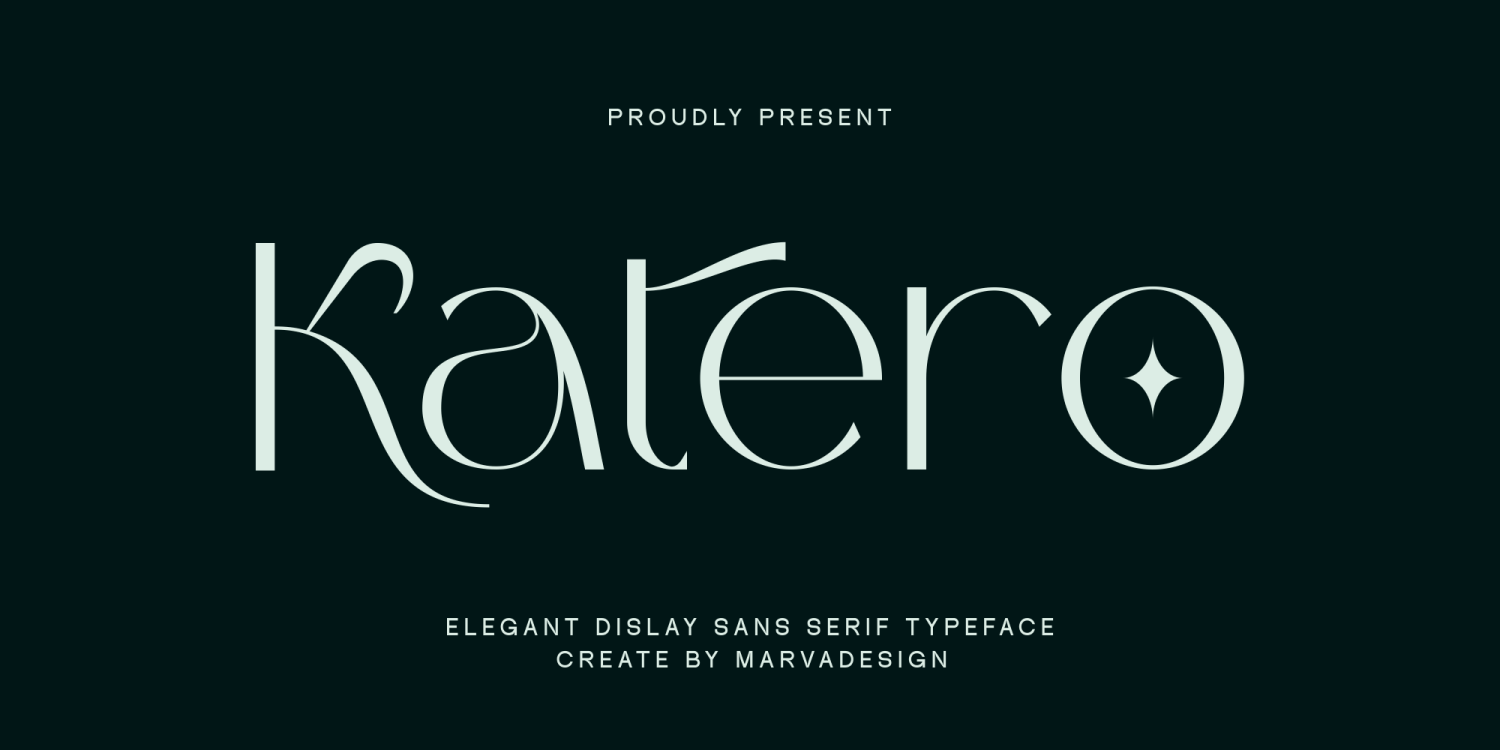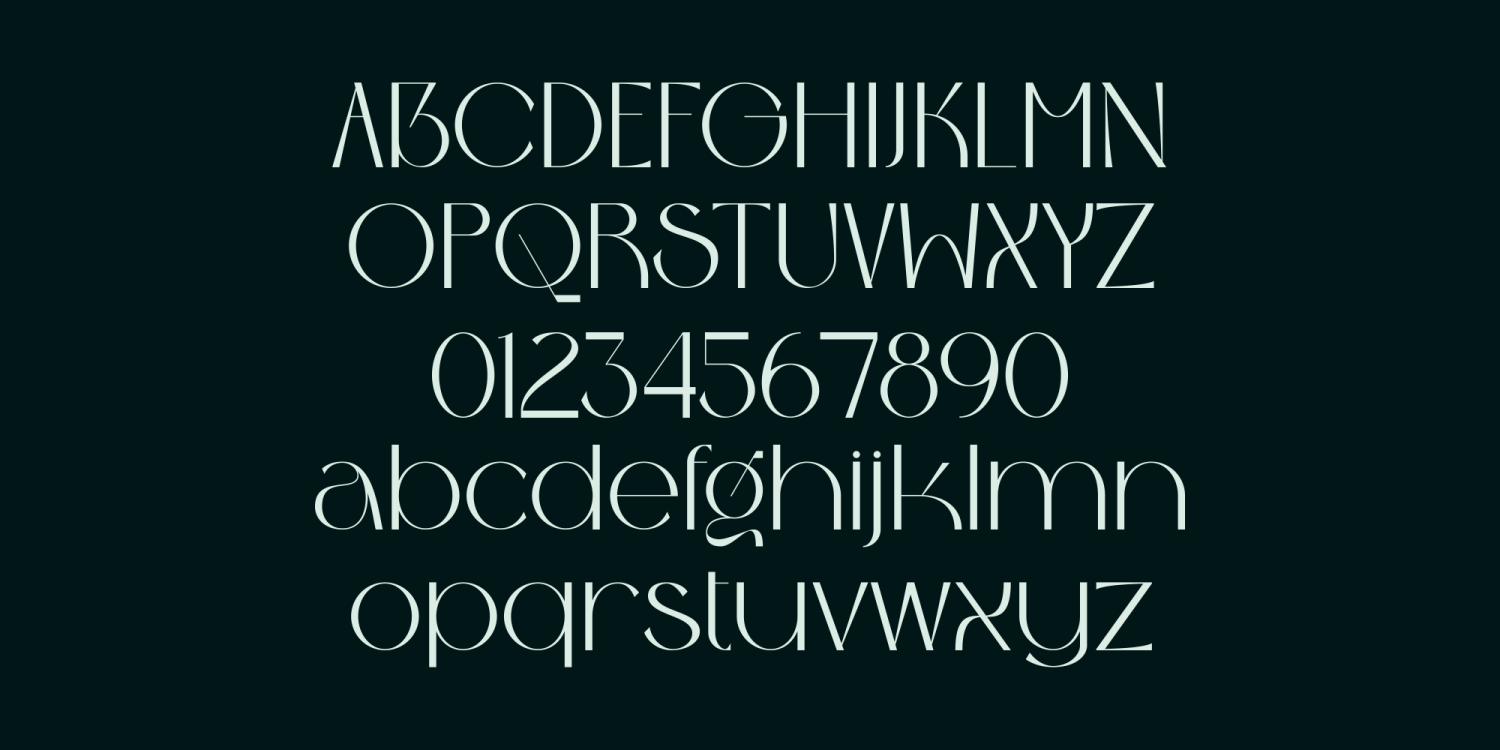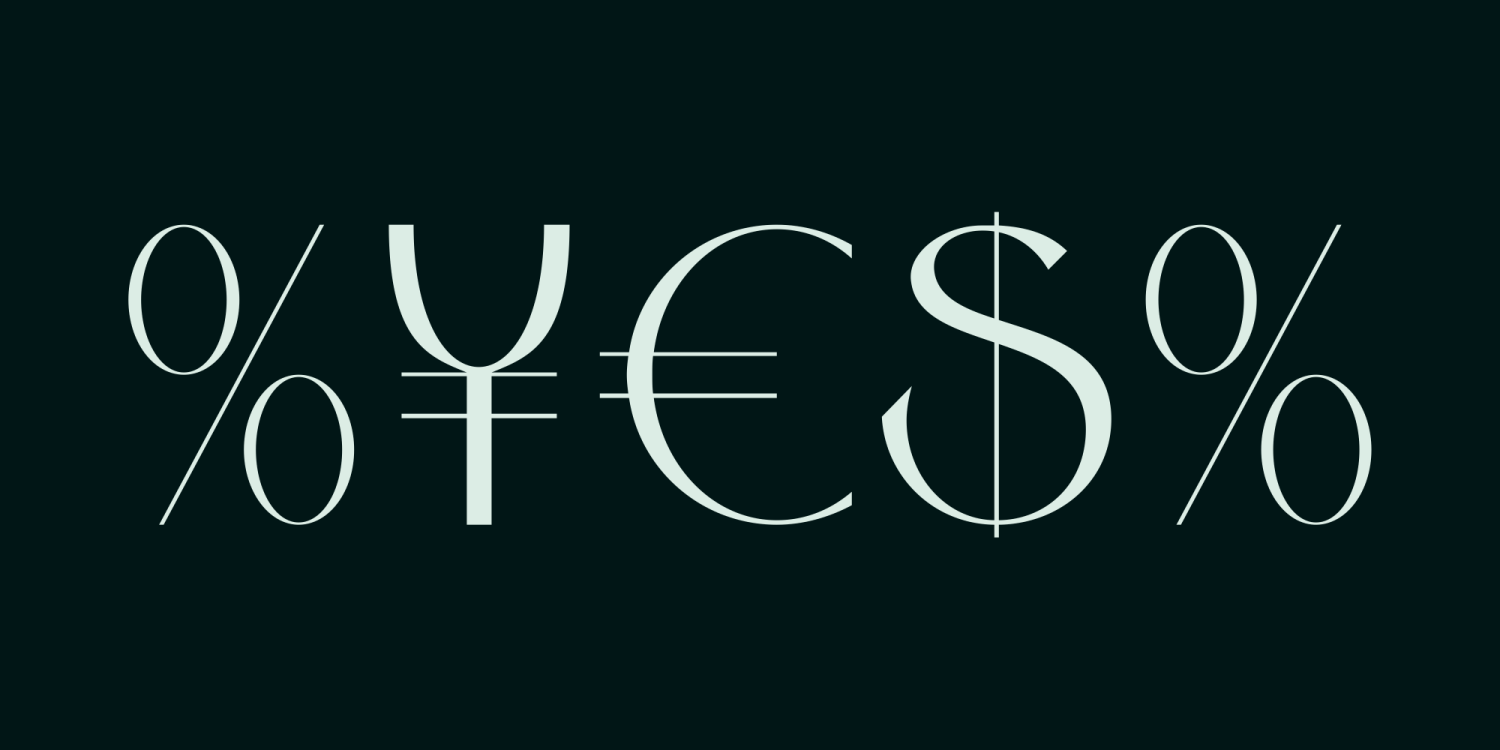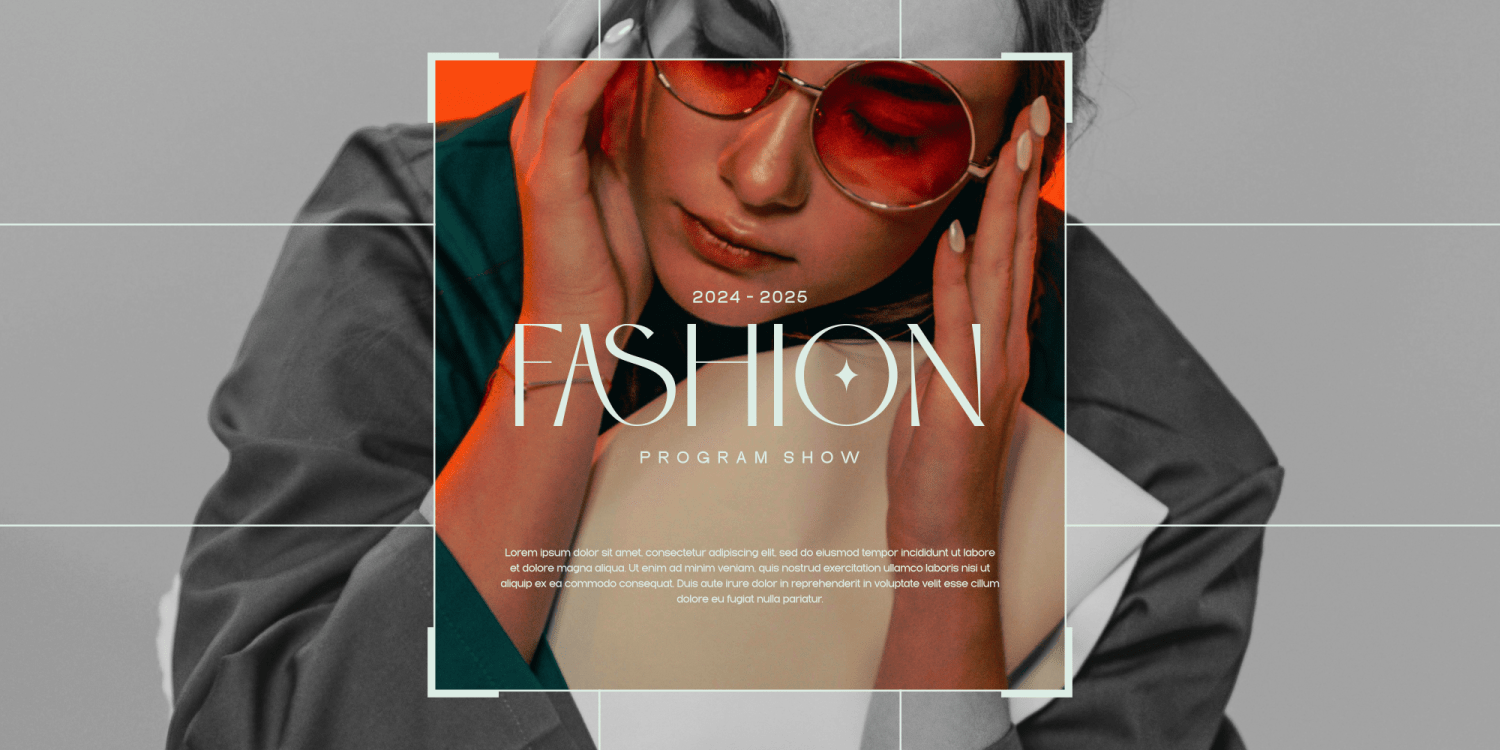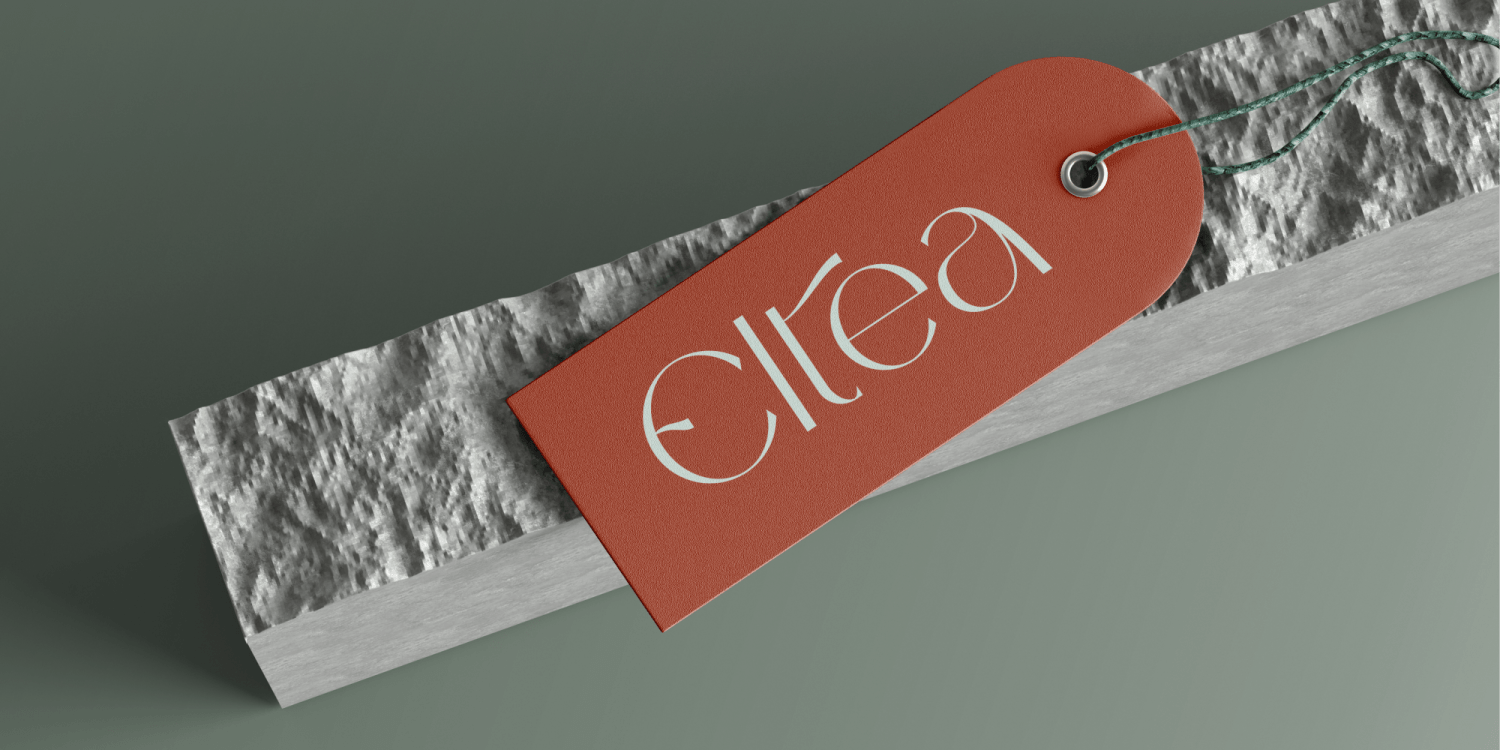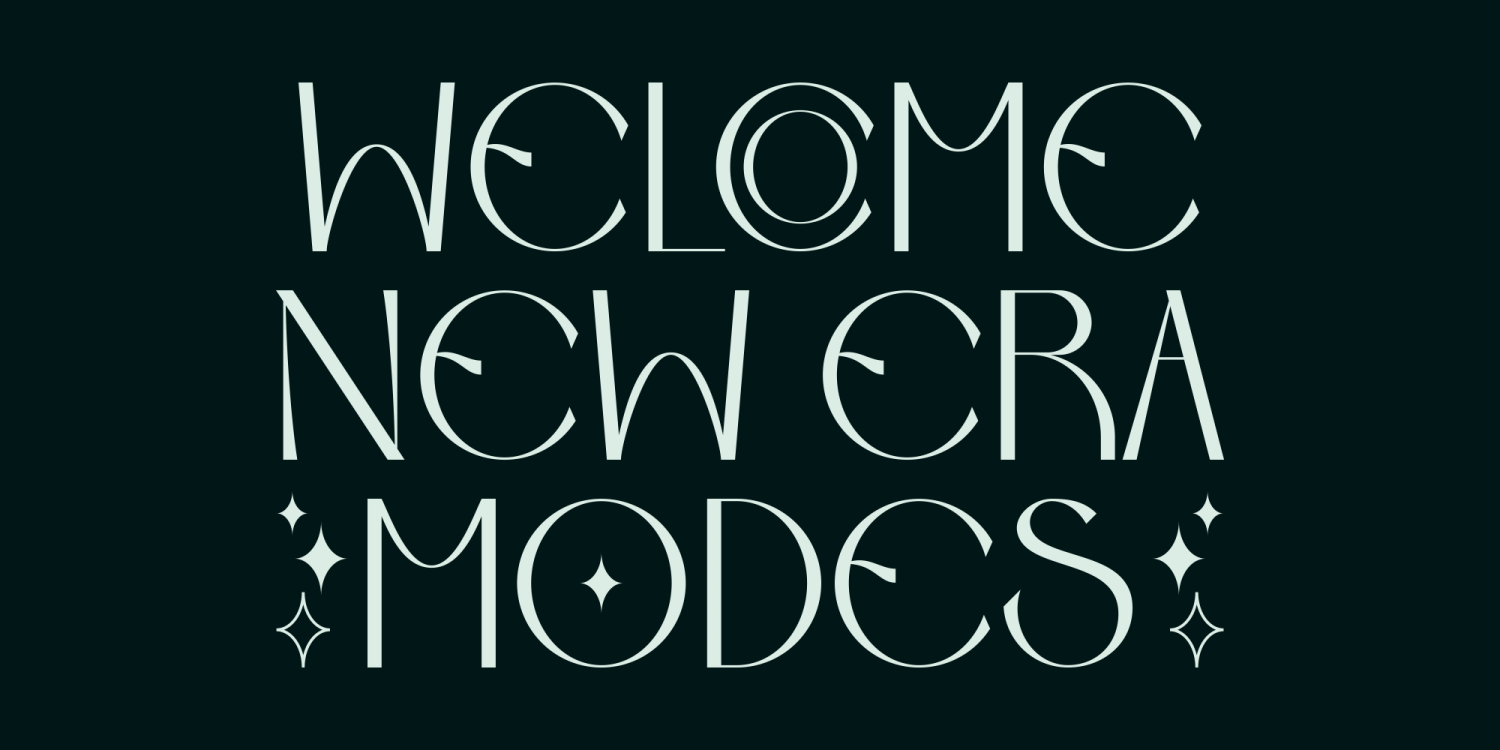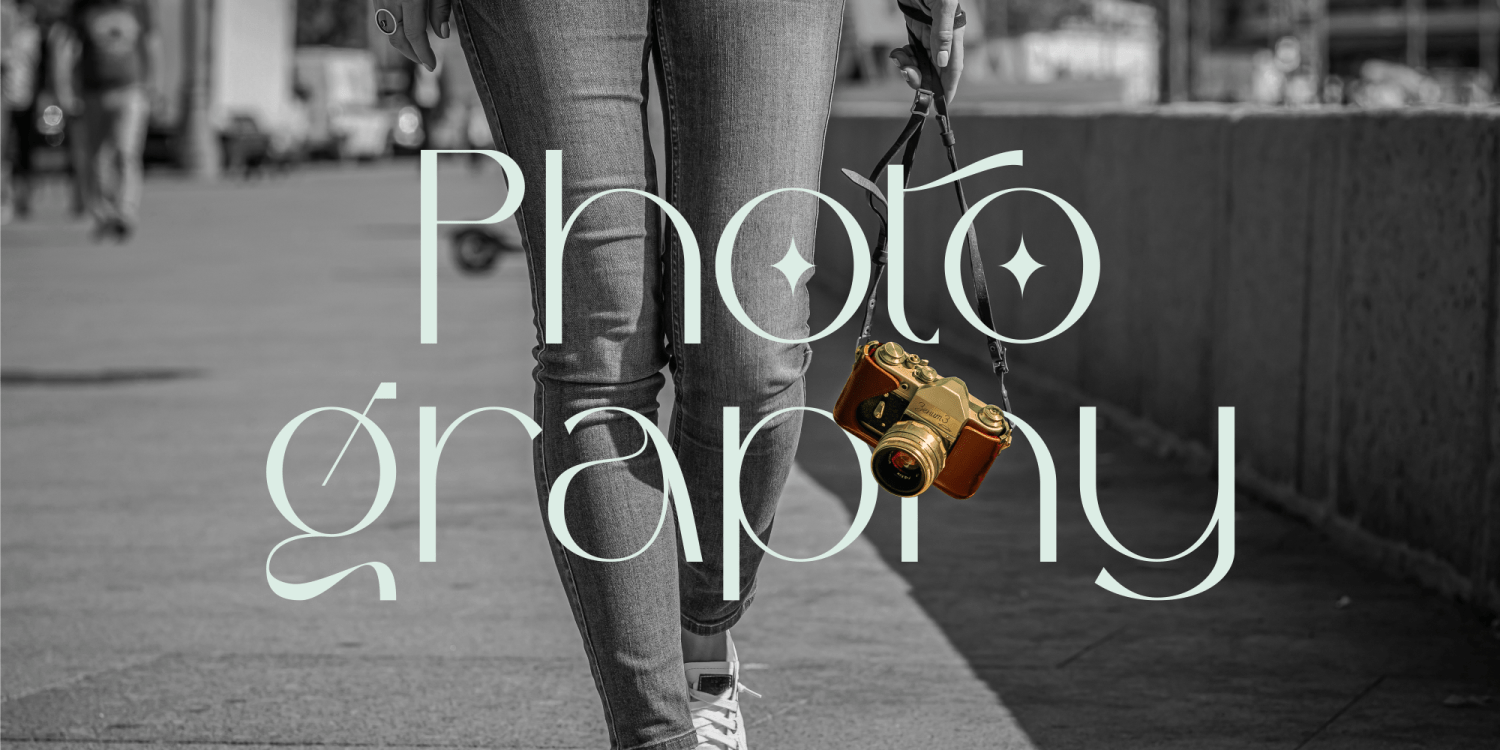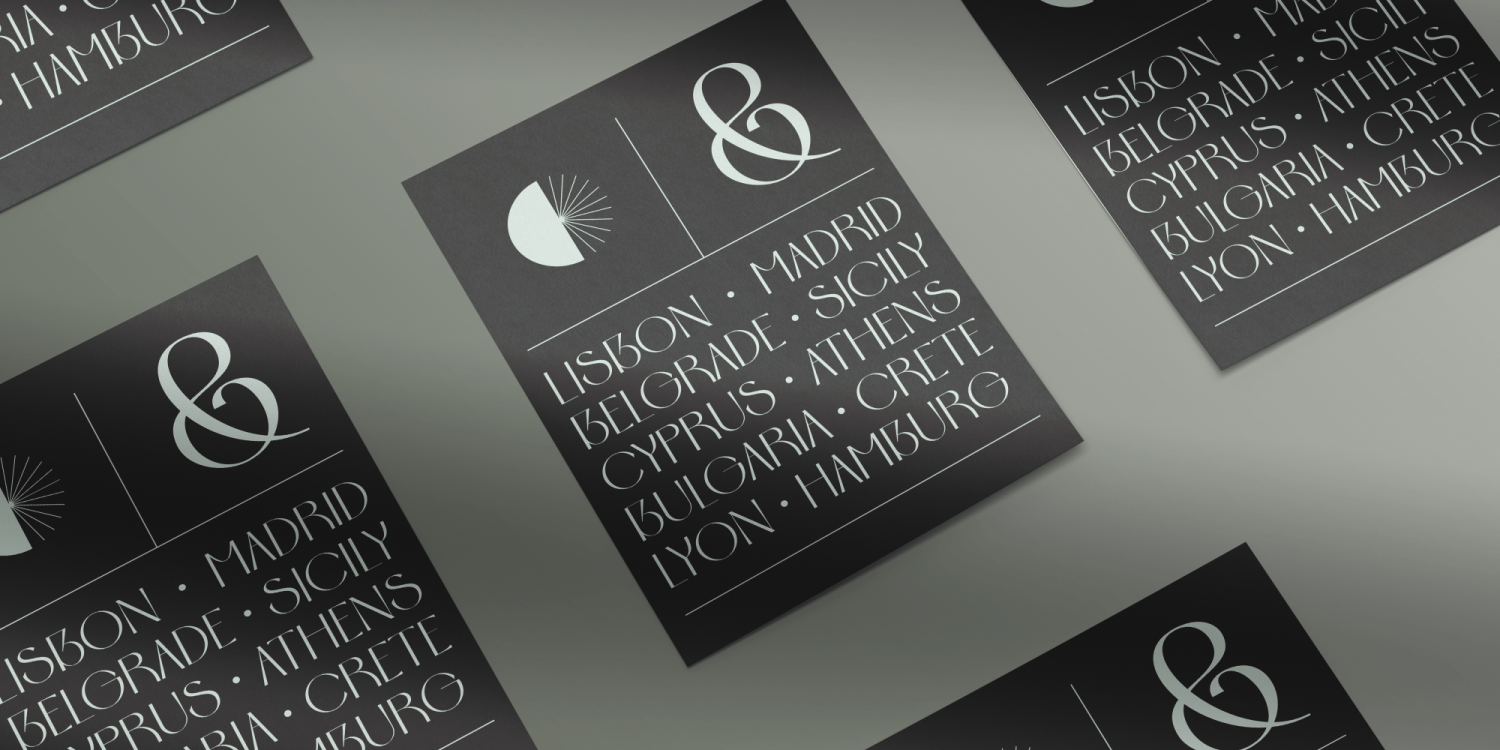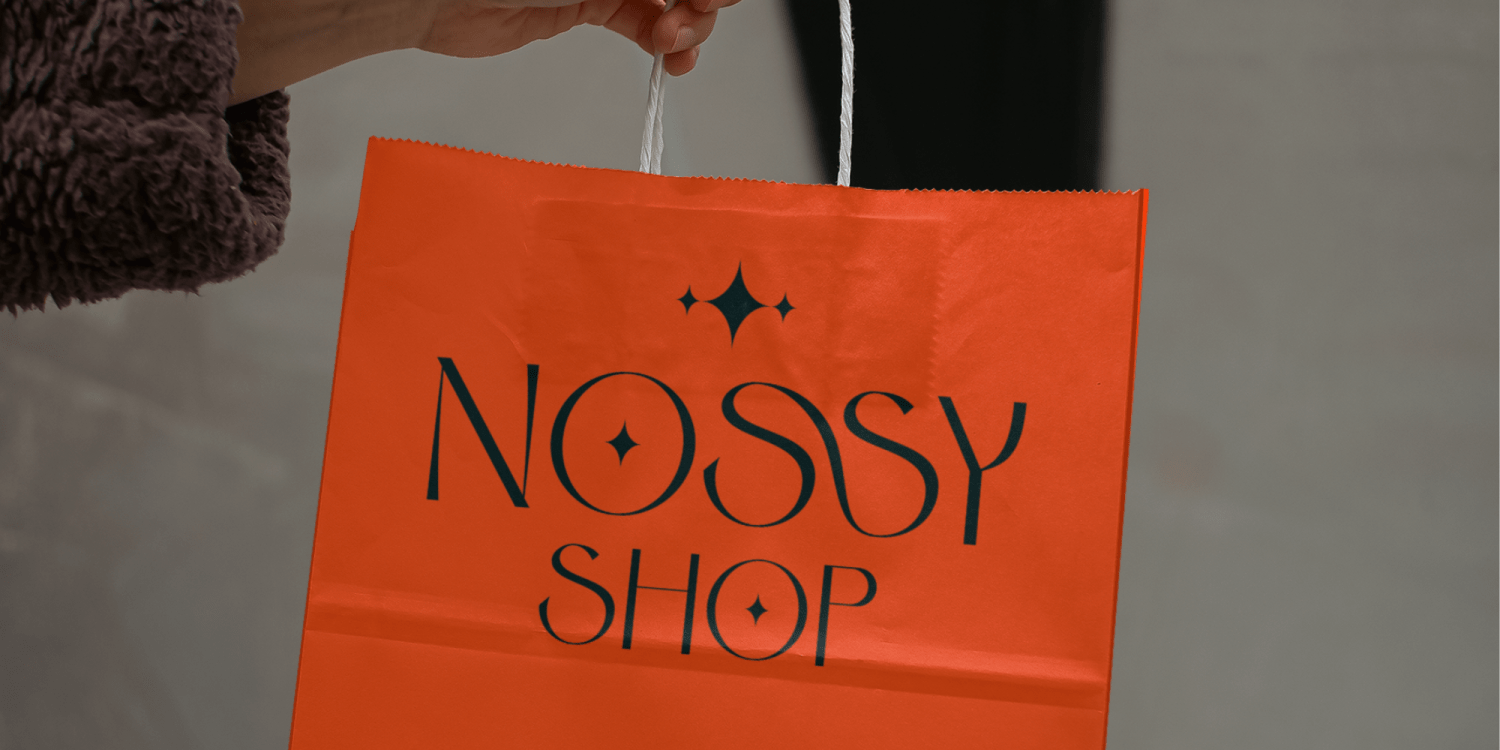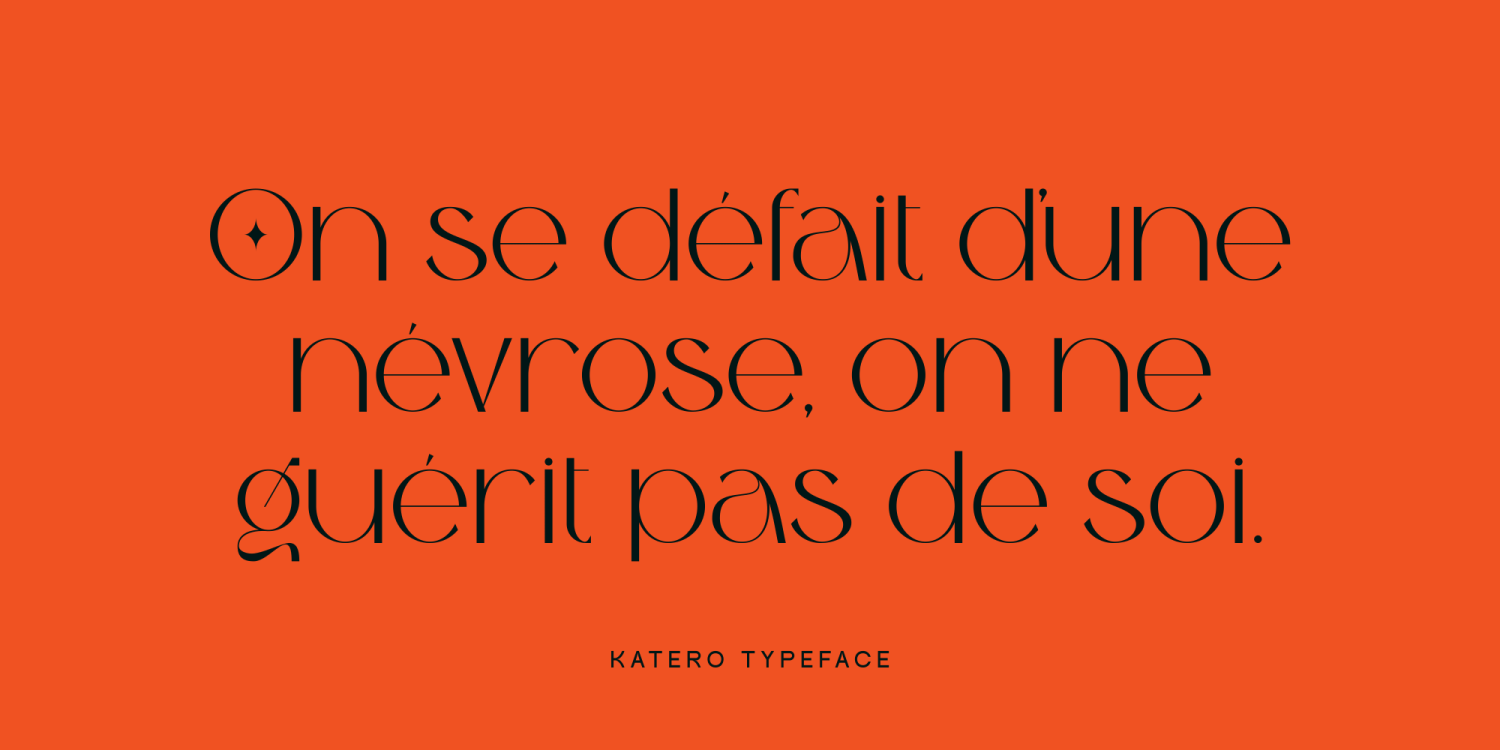
Katero
Katero is an elegant sans serif font that combines minimalist aesthetics with sophistication. Its clean and modern design is highlighted by unique characters, giving it a distinct personality while maintaining versatility. Suitable for branding, editorial design, and beyond, Katero embodies simplicity and elegance.
Featuring a range of ligatures and alternative characters, Katero allows for customization and creative flair. It is perfect for both display and text usage, offering readability alongside a refined visual appeal. With its timeless style, Katero is a dependable choice for projects that demand functionality and elegance.